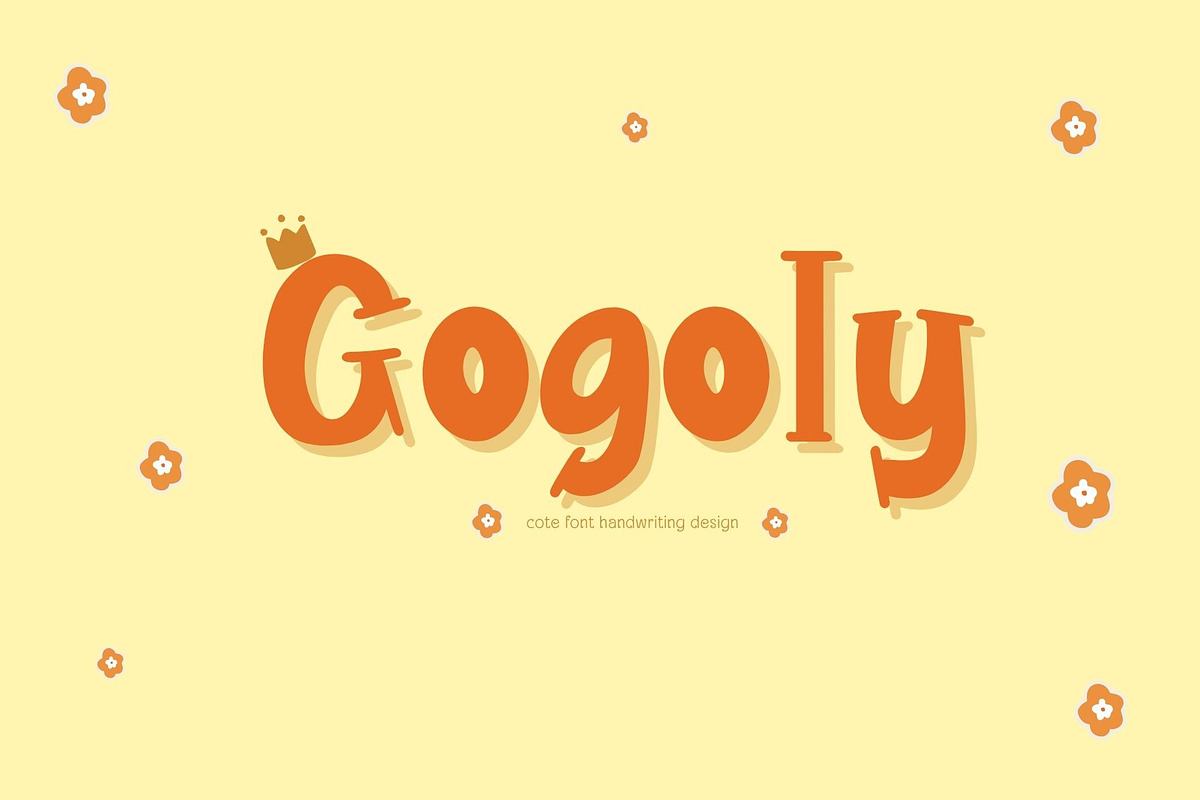
Please note, to use this font for commercial purposes, you must purchase the full version. Gogoly is a modern and stylish font that brings a fresh, clean look to any design. With its unique, rounded letterforms and smooth curves, this font is perfect for logos, branding, invitations, and website designs. Whether you're looking to create a professional brand identity or a fun, friendly invitation, Gogoly offers the versatility and elegance you need. Test it out and enjoy free download access for personal use. Experience the beauty and versatility of Gogoly Font Free Download before purchasing the commercial license. Add a contemporary, stylish touch to your designs with this beautiful font.